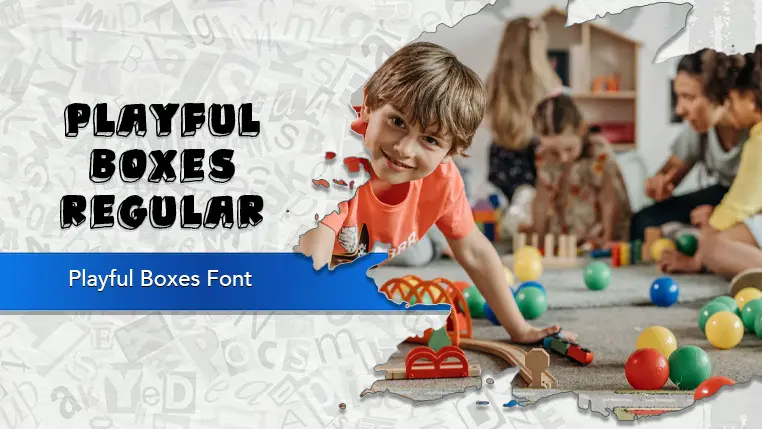
The Playful Boxes font family may be ideal for you if you enjoy working on an artistic design project. The lively, expressive look of this typeface, which was created by Eko Bimantara, makes it ideal for Playful branding and logos. Children's products and content for Books, games, toys, educational materials, and anything aimed at a young audience. Posters and banners where you need a headline or title that immediately captures attention and conveys a sense of excitement. Game design for titles, character names, or in-game text that needs a playful and distinct look. Invitations and greeting cards for events like birthdays, parties, or anything that needs a celebratory and informal tone. and other light-hearted visual projects.
Regular are the one primary font styles of the Playful Boxes font family. You may build dynamic, visually appealing text layouts with the distinct flair that each style offers. With crisp, readable lines and a relaxed tone.